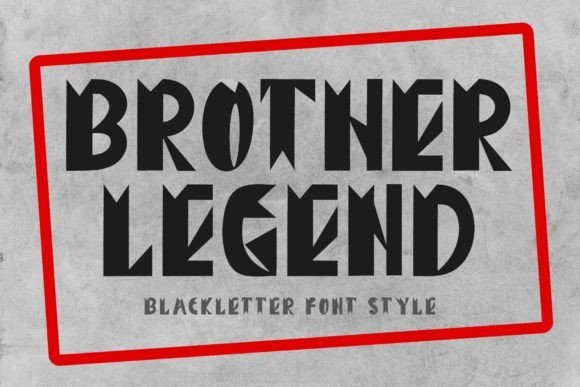
The Perfect Font for a Legendary Design
As a designer, have you ever been brainstorming ideas for a project and suddenly, a spark of creativity hits you? Maybe it’s a bold color scheme, a unique layout, or a font that just screams “epic.” For me, that moment came when I stumbled upon the Brother Legend Font. This elegant blackletter font is more than just a pretty face – it’s a versatile tool that can elevate any design project.
The Brother Legend Font is perfect for a wide range of applications, from spooky Halloween banners to festive Christmas decorations. Its multilingual support and comprehensive character set make it a valuable asset for designers who need to create professional-looking designs quickly and efficiently. With its unique style and versatility, the Brother Legend Font is sure to become a go-to choice for designers looking to add a touch of elegance and sophistication to their work.
Brother Legend Font Key Features
- Font Family: Brother Legend Font, a unique and distinctive font designed to evoke a sense of nostalgia and retro charm.
- Unique Characteristics: The font features a distinctive blend of vintage and modern elements, with a unique letterform design that adds a touch of personality to any text.
Brother Legend Font Review
At first glance, the Brother Legend Font is quite striking ✨. Its unique blend of classic and modern elements gives it a distinct personality that’s hard to ignore. The font is perfect for designers looking to add a touch of nostalgia to their projects while still feeling contemporary.
One of the standout features of Brother Legend Font is its versatility ✨. It can be used for a wide range of applications, from body text to headings, and even for logos and branding. The font’s high level of customization also makes it an excellent choice for designers who want to fine-tune their work to perfection.
However, there are a few limitations to consider ⚠️. For one, the font may not be suitable for projects that require extremely precise control over letter spacing and kerning. Additionally, the font’s limited character set may cause issues for designers who need to use special characters or accents.
- Limited character set may cause issues with special characters or accents
- May not be suitable for projects requiring precise control over letter spacing and kerning
Overall, I’d say the Brother Legend Font is a solid choice for designers looking to add some visual interest to their projects ✨. While it may have some limitations, its unique style and versatility make it a great option for anyone looking to stand out from the crowd.
Getting the Most Out of the Font
To get the most out of the Brother Legend Font, use it for designs that require a vintage or retro aesthetic, such as:
- Poster designs
- Brochure designs
- Label designs
The Brother Legend Font is commonly used for:
- Music-related designs
- Travel-related designs
- Food-related designs
Alternatives to Brother Legend Font
Courier New
Courier New is a monospaced sans-serif font, often used for coding and technical writing. It is a classic font that has been widely used for decades. It is a good alternative to Brother Legend Font for projects that require a clean and simple font.
Comparison: Courier New is more geometric and less stylized than Brother Legend Font. It is a more versatile font that can be used for a variety of purposes, while Brother Legend Font is more specific to fantasy and adventure themes.
OCR-A
OCR-A is a monospaced sans-serif font, designed for use in optical character recognition systems. It is a clear and easy-to-read font that is often used for technical and scientific writing. It is a good alternative to Brother Legend Font for projects that require a clean and readable font.